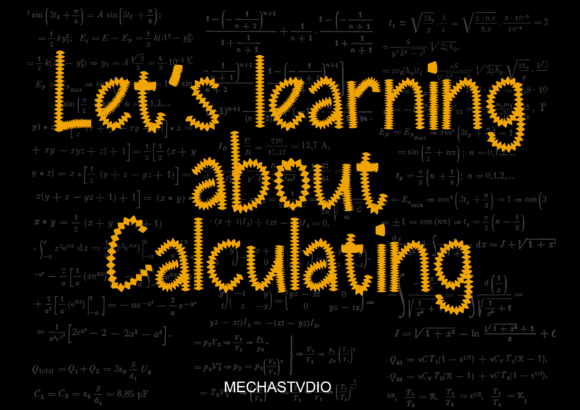
Introduction to Semphoa Font
You know that moment when you’re brainstorming ideas for a creative project and the perfect font just clicks? That’s exactly what happens when you stumble upon the Semphoa Font. Its playful and dynamic nature makes it an ideal addition to any design library, and we’re excited to share its awesomeness with you.
As a valuable resource for designers, Semphoa Font offers a high-quality, free download that can elevate your branding, logos, and social media posts to the next level. With its versatility and unique style, this font is perfect for those who want to stand out from the crowd and make a lasting impression.
Whether you’re working on a new project or simply looking to refresh your design library, the Semphoa Font is a must-have. Its transparent background and modern aesthetic make it an excellent choice for any creative endeavor, from stationery to poster designs and beyond.
Key Features of Semphoa Font
- High-quality design resource ideal for creative projects, including logos, graphics, and digital art.
- Unique, elegant design with a transparent background, allowing for versatility and flexibility in creative applications.
- Easy to use and customize, making it an excellent choice for designers working on a wide range of creative projects.
Honest Review: Semphoa Font
I recently had the chance to work with the Semphoa Font, and I’m excited to share my honest review with you. As a designer, I’m always on the lookout for high-quality design resources to elevate my creative projects. Semphoa Font definitely fits the bill.
- Stunning lettering: The Semphoa Font boasts beautiful, intricate lettering that’s perfect for adding a touch of elegance to any design.
While the Semphoa Font is a great addition to any design collection, there are a few limitations to be aware of. For one, the font is limited in its character set, which may not be ideal for longer text blocks. Additionally, the font’s bold weight can be a bit too heavy-handed at times.
Overall, I’m impressed with the Semphoa Font and would recommend it to designers looking to add some sophistication to their creative projects. While it may not be perfect, it’s a valuable design resource that’s definitely worth exploring.